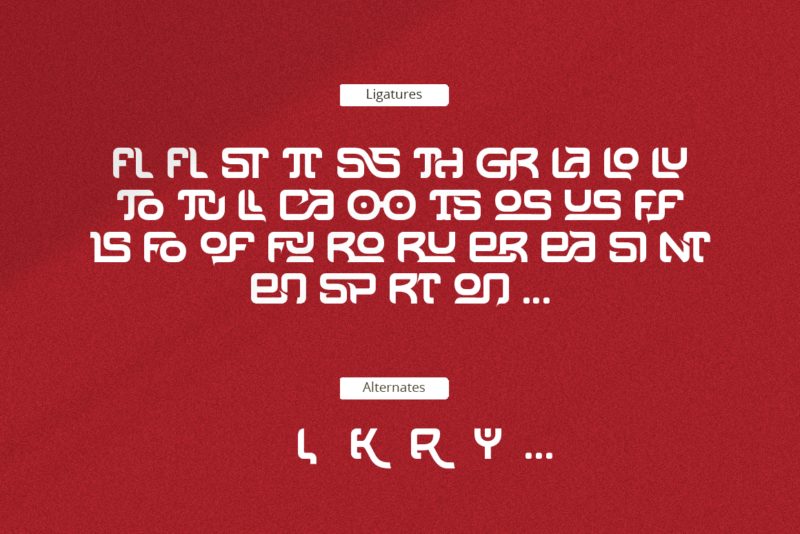
Kocak
Kocak is an unique modern semi bold and elegant decorative font with a fun, attractive style look. This font equipped with extra ligatures and alternates, that will give more personality to your stunning headlines. This font is able to use lower case as uppercase characters without sacrificing a strong even presence. Kocak is perfect for logotype design, posters, t-shirt designs, packaging brand, magazine header etc.
Kocak Features:
• Uppercase glyphs
• Lowercase glyphs
• Numeral and Punctuations
• standard Ligatures
• Stylistic Alternates